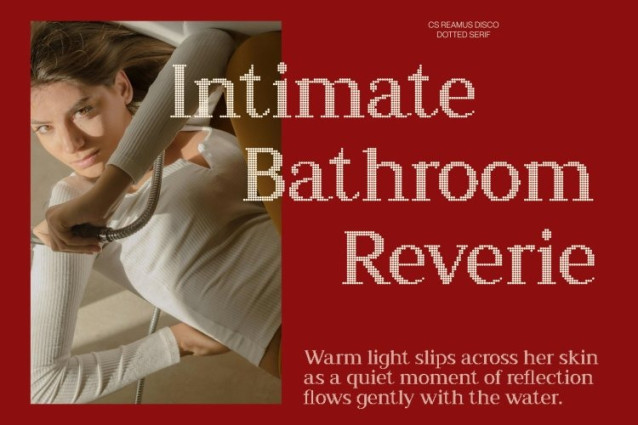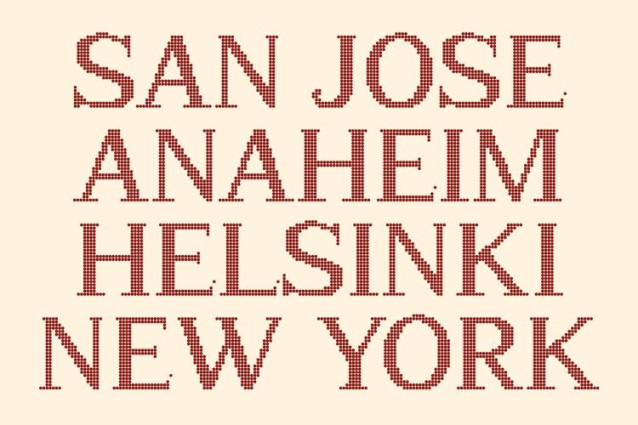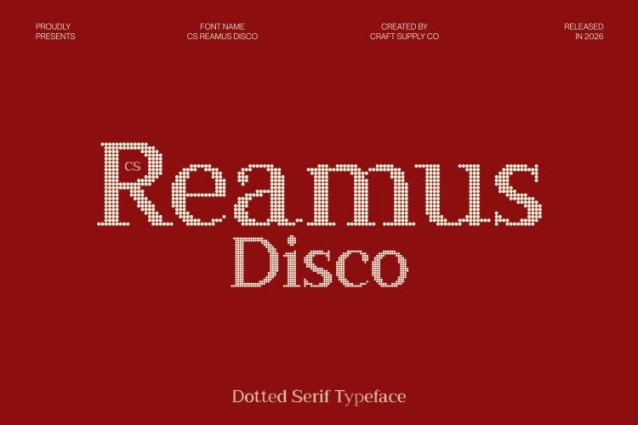
CS Reamus Disco Font
CS Reamus Disco Font – This is a modern serif font that blends minimal sophistication with a lively disco-style dotted texture. Its clean structure and elegant letterforms maintain a refined and professional appearance, while the subtle dotted surface introduces a touch of decorative brilliance. This fusion creates a typeface that feels both timeless and visually distinctive.
Clean Lines with Luminous Character
The font’s balanced proportions and precise serif details communicate clarity and confidence. Enhanced with the sparkling dotted texture, each character gains depth and rhythm without losing its refined simplicity. This combination preserves the elegance of modern serif typography while adding a fresh, eye-catching dimension.
Contemporary Simplicity with Expressive Style
While rooted in minimal design principles, this font brings a vibrant twist through its textured surface. The result is a font that remains polished and readable, yet expressive enough to elevate visual compositions with subtle personality and charm.
Perfect for Editorials, Branding, and Luxury Design
This font works beautifully in editorial layouts, brand identities, magazine titles, posters, and sophisticated marketing materials. Its modern serif structure provides professionalism, while the decorative dotted effect adds a unique visual accent that helps designs stand out gracefully.